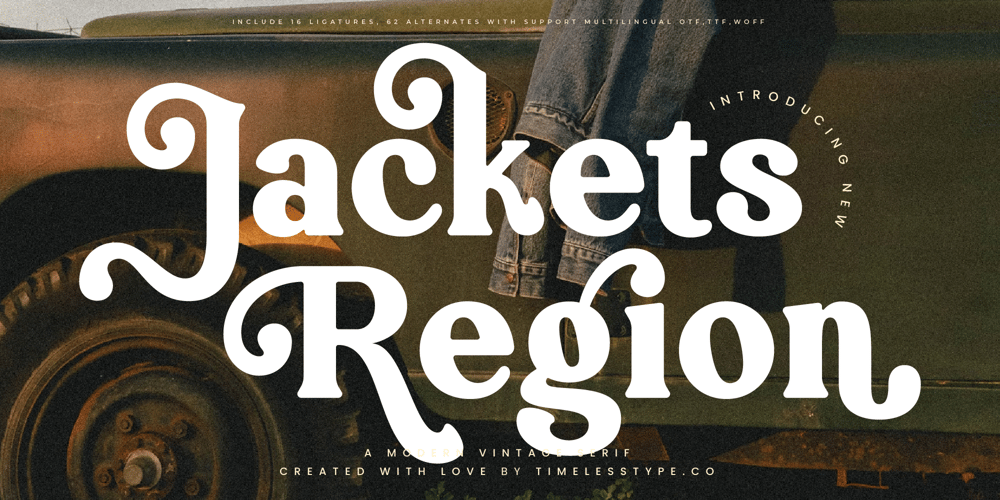
Jackets Region
Jackets Region font
Jackets Region Font Family was designed by Heru Utama Putra and published by Timelesstype Studio. Jackets Region contains 2 styles and family package options. Jackets Region – Modern Vintage Serif , from Timelesstype , Suitable for any projects such as: logos, branding projects, homeware designs, product packaging, mugs, quotes, posters, shopping bags, t-shirts, book covers, name card, invitation cards, greeting cards, label, photography, watermark, special events, and all your other luxury and beautiful projects that need a Luxury Serif taste.